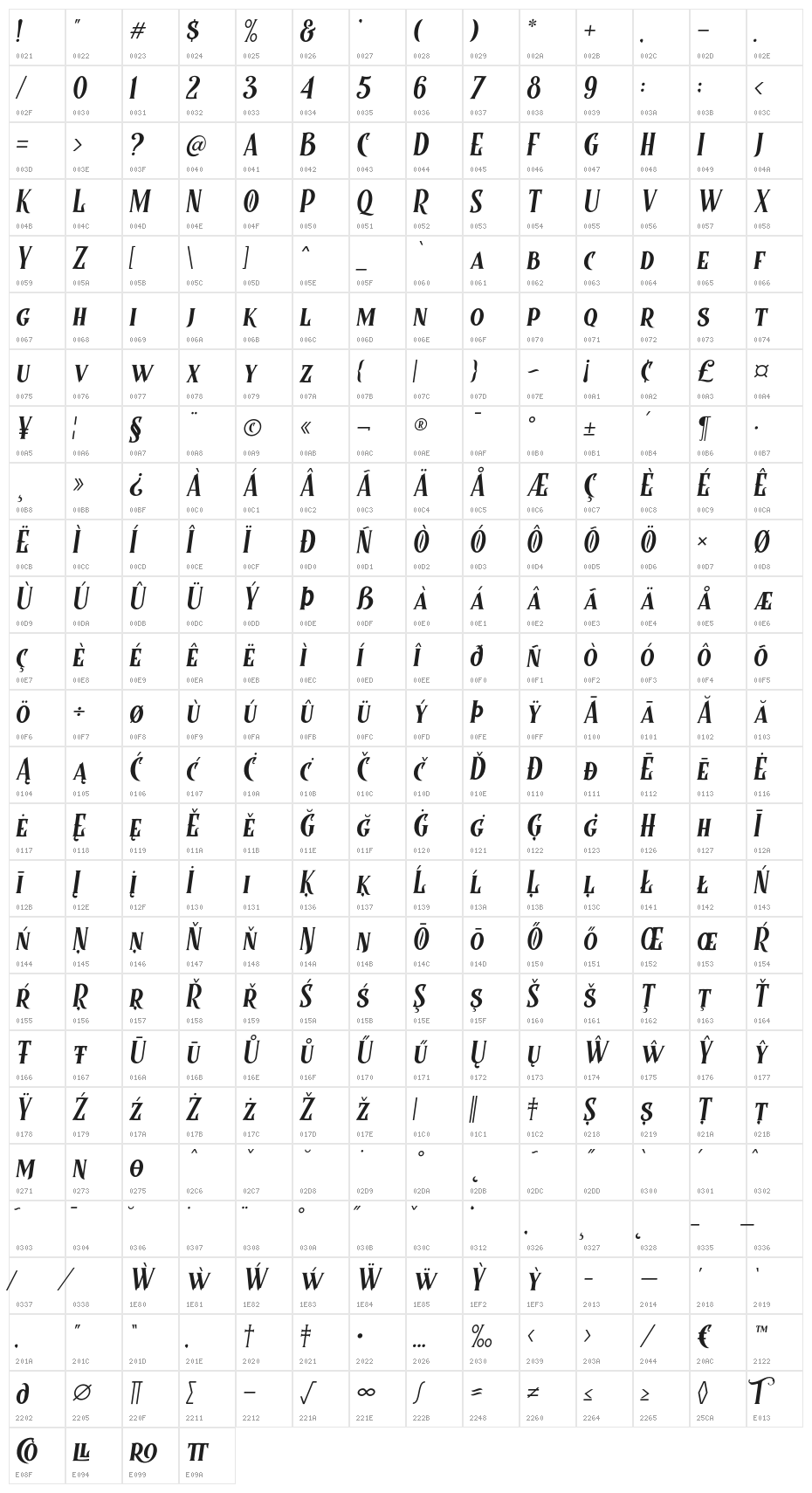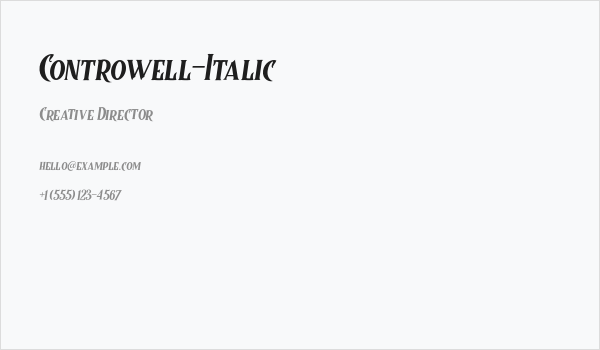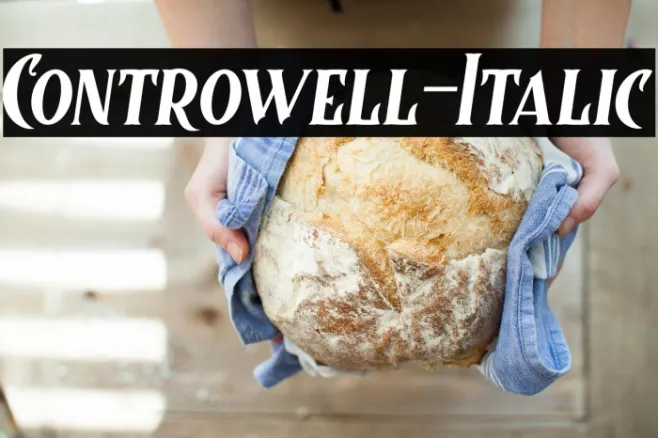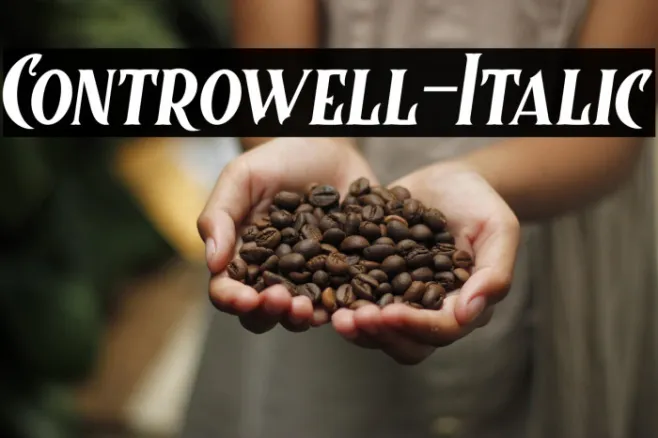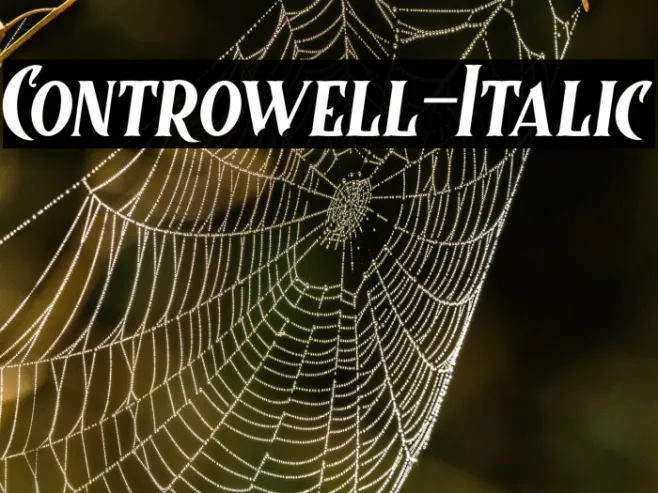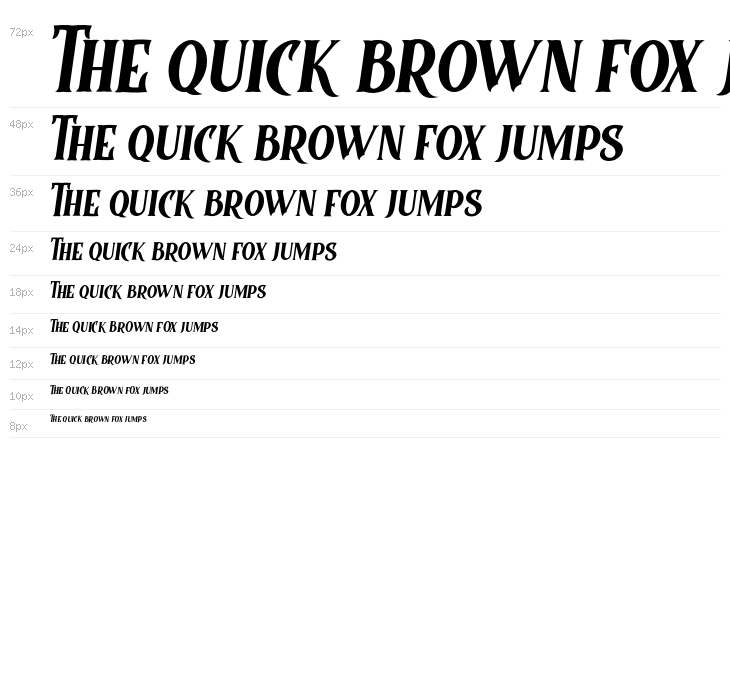
Controwell-Italic Font
Controwell-Italic Description
This font features a dynamic and expressive style with a pronounced italic slant, giving it a sense of movement and elegance. The characters are bold and have a high contrast between thick and thin strokes, enhancing their visual impact. The serifs are sharp and slightly exaggerated, adding a touch of sophistication. The overall design is both modern and classic, making it versatile for various applications. The numbers and special characters maintain the same stylistic features, ensuring consistency throughout the font.